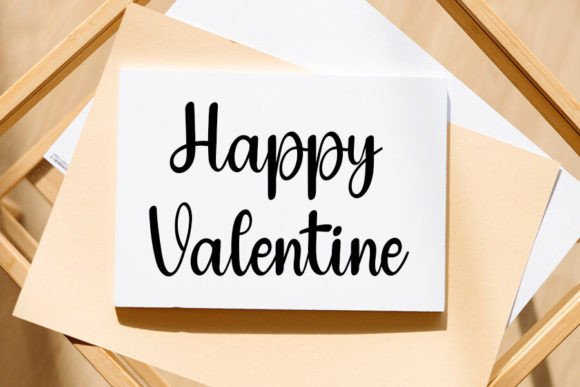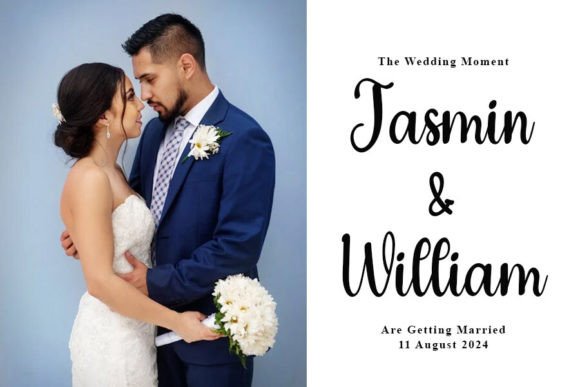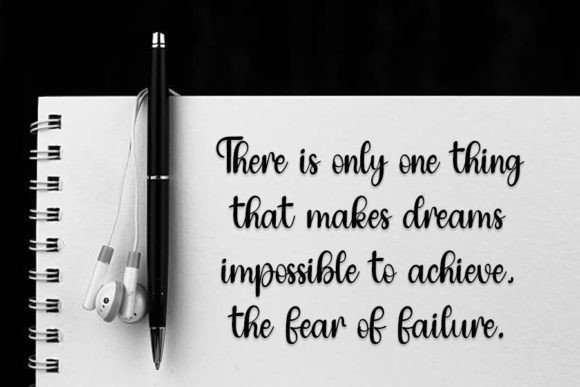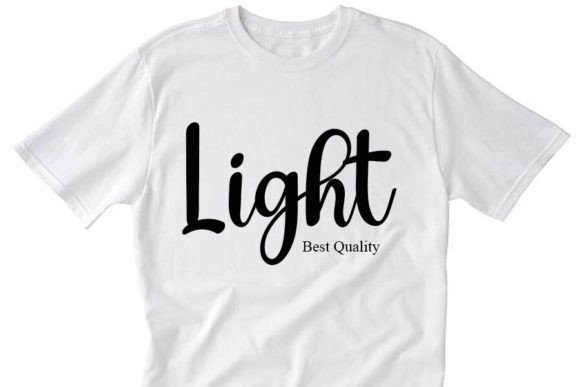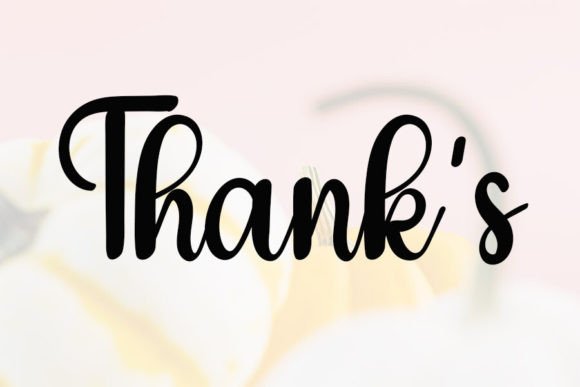
Hello Darling Font: Elevate Your Creative Projects with Elegance and Fun
Are you on the hunt for a font that adds a dash of elegance and a whole lot of fun to your creative projects? Look no further than the Hello Darling Font! This charming, handwritten font is meticulously crafted to bring a touch of sophistication and whimsy to your designs, making it perfect for a wide range of applications, from Instagram posts to DIY crafts.
The Essence of Hello Darling Font
Hello Darling is more than just a font – it’s an invitation to elevate your creative expression. Its carefully designed characters boast a unique blend of elegance and playfulness, ensuring that your projects stand out with a distinctive charm. Whether you’re working on digital content, crafting beautiful calligraphy scripts, or brainstorming innovative DIY projects, this font is your perfect companion.
Key Features of Hello Darling Font
- Handwritten with Love: Each letter is crafted with precision and a personal touch, giving the font a warm, inviting feel that’s hard to replicate with standard fonts.
- Elegant yet Fun: The Hello Darling Font strikes the perfect balance between sophistication and playfulness, making it versatile for various creative endeavors.
- Perfect for Instagram: In a world where visual content reigns supreme, Hello Darling can help your Instagram posts and stories stand out. Use it for quotes, captions, or any text you want to add a personal flair to.
- Ideal for DIY Projects: For crafters and DIY enthusiasts, this font can add a professional touch to handmade cards, journals, and other craft projects.
- Calligraphy Scripts: If you’re interested in calligraphy, Hello Darling offers a beautiful foundation for your scripts, combining traditional techniques with a modern twist.
How to Use Hello Darling Font in Your Projects
Integrating Hello Darling into your workflow is straightforward, and its versatility means it can be used in a multitude of ways:
- Digital Designs: From social media graphics to digital planners, Hello Darling can add a unique touch to your digital creations.
- Print Materials: Use it for brochures, flyers, or any printed material where you want to make a memorable impression.
- Crafting: Add a professional and aesthetic appeal to your handmade crafts, such as customized stationery, wall art, or packaging.
Tips for Maximizing the Hello Darling Font
To get the most out of Hello Darling, consider the following tips:
- Experiment with Colors: Play around with different colors to match your brand or project’s theme. The font’s elegance shines through in both bold and pastel colors.
- Mix and Match: Don’t be afraid to combine Hello Darling with other fonts for a unique look. Its friendly nature pairs well with a variety of font styles.
- Emphasize with Size: Use size variations to create a hierarchy of information or to emphasize certain parts of your text.
Hello Darling Font is a delightful addition to any creative arsenal. Its blend of elegance and playfulness makes it an excellent choice for designers looking to add a personal touch to their work and crafters aiming to elevate their DIY projects. With its wide range of applications and easy integration into various workflows, Hello Darling is poised to become your go-to font for turning creative ideas into true pieces of art.